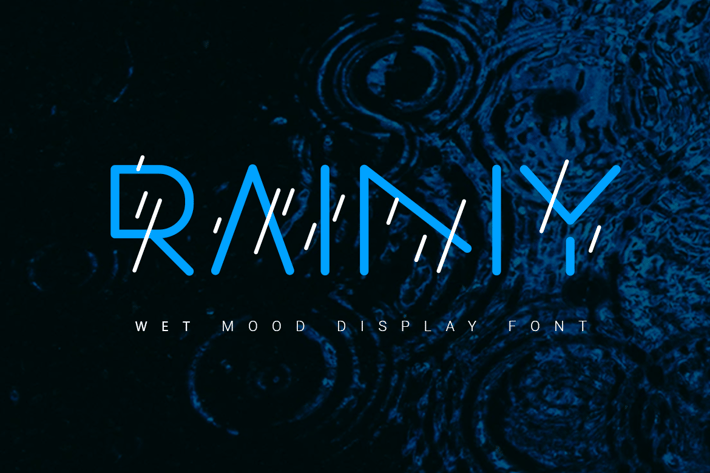
Rainy| color line font
Rainy is a delicate sans serif font designed with rounded letters and decorative lines. The font has alternates with or without color. The font looks good both on a light and on a dark background. The font has only capital letters, it works great to make short titles.
- uppercase letters with alternates
- numbers
- special characters set